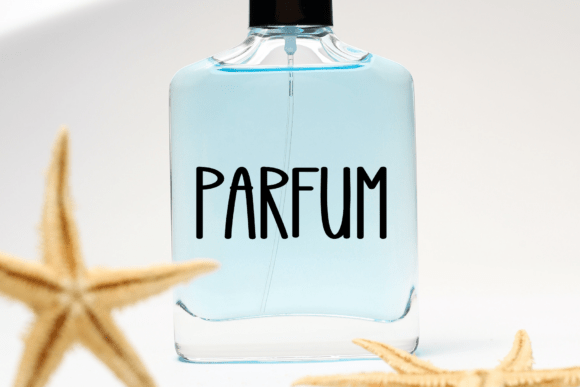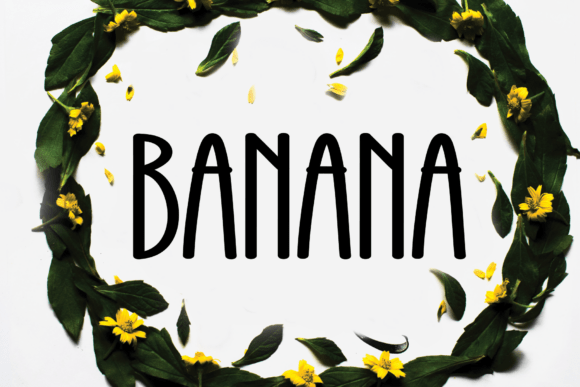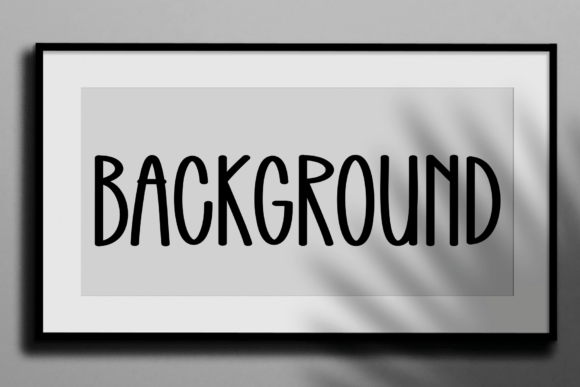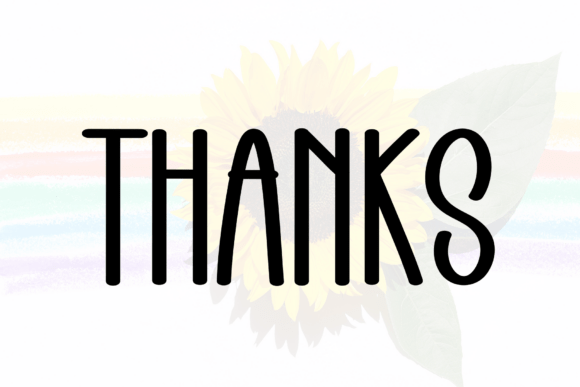
Introducing Happy Married Font: The Perfect Blend of Elegance and Casualness
Are you a designer or crafter looking for a unique and stylish font to elevate your brand, wedding supplies, or greeting cards? Look no further than Happy Married Font, a beautiful handwritten font that exudes a relaxed and sporty feel. In this article, we’ll dive into the features and benefits of Happy Married Font, and explore how it can add a touch of luxury and elegance to your designs.
What is Happy Married Font?
Happy Married Font is a handwritten font that looks like it was drawn with a marker. Its casual and laid-back vibe makes it perfect for designs that require a personal touch. The font’s relaxed and sporty feel is ideal for a wide range of applications, from branding and logos to wedding supplies, greeting cards, and marketing promotions.
Key Features of Happy Married Font
- Handwritten style: Happy Married Font has a unique, handwritten style that gives it a personal and friendly feel.
- Marker-like texture: The font’s texture resembles a marker, adding a touch of casualness and elegance to your designs.
- Relaxed and sporty feel: Happy Married Font’s relaxed and sporty vibe makes it perfect for designs that require a laid-back and modern approach.
- Versatile: This font is suitable for a wide range of applications, including branding, logos, wedding supplies, greeting cards, fashion, lookbooks, and marketing promotions.
Benefits of Using Happy Married Font
So, why should you choose Happy Married Font for your designs? Here are just a few benefits:
- Adds a personal touch: Happy Married Font’s handwritten style and marker-like texture give your designs a personal and friendly feel.
- Elevates your brand: With its relaxed and sporty vibe, Happy Married Font can help elevate your brand and make it more modern and stylish.
- Perfect for wedding and event designs: The font’s elegant and casual feel makes it perfect for wedding supplies, greeting cards, and other event-related designs.
How to Use Happy Married Font
Using Happy Married Font is easy! Here are a few tips to get you started:
- Pair it with other fonts: Happy Married Font pairs well with other fonts, so feel free to experiment with different combinations to find the perfect look for your design.
- Use it for headings and titles: The font’s bold and playful style makes it perfect for headings and titles.
- Add a personal touch: Use Happy Married Font to add a personal touch to your designs, such as in signatures, captions, or quotes.
Design Ideas Using Happy Married Font
- Wedding invitations: Use Happy Married Font to create beautiful and elegant wedding invitations that set the tone for the big day.
- Greeting cards: The font’s casual and friendly feel makes it perfect for greeting cards, whether it’s for a birthday, anniversary, or holiday.
- Branding and logos: Happy Married Font can add a touch of elegance and sophistication to your brand, making it perfect for logos, business cards, and other marketing materials.
- Fashion lookbooks: The font’s relaxed and sporty vibe makes it perfect for fashion lookbooks, adding a modern and stylish touch to your designs.
In conclusion, Happy Married Font is a beautiful and versatile font that can add a touch of elegance and casualness to your designs. With its handwritten style, marker-like texture, and relaxed and sporty feel, it’s perfect for a wide range of applications, from branding and logos to wedding supplies, greeting cards, and marketing promotions. Whether you’re a designer or crafter, Happy Married Font is a great choice for anyone looking to elevate their designs and add a personal touch.